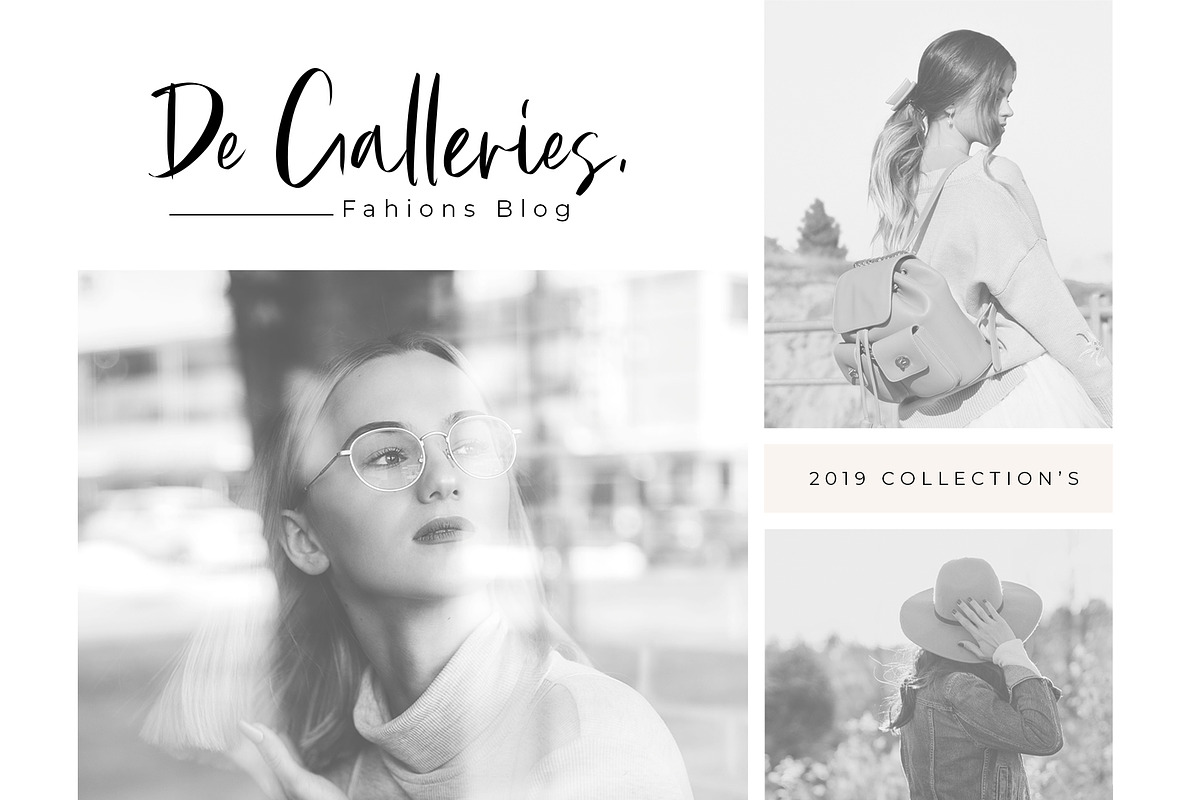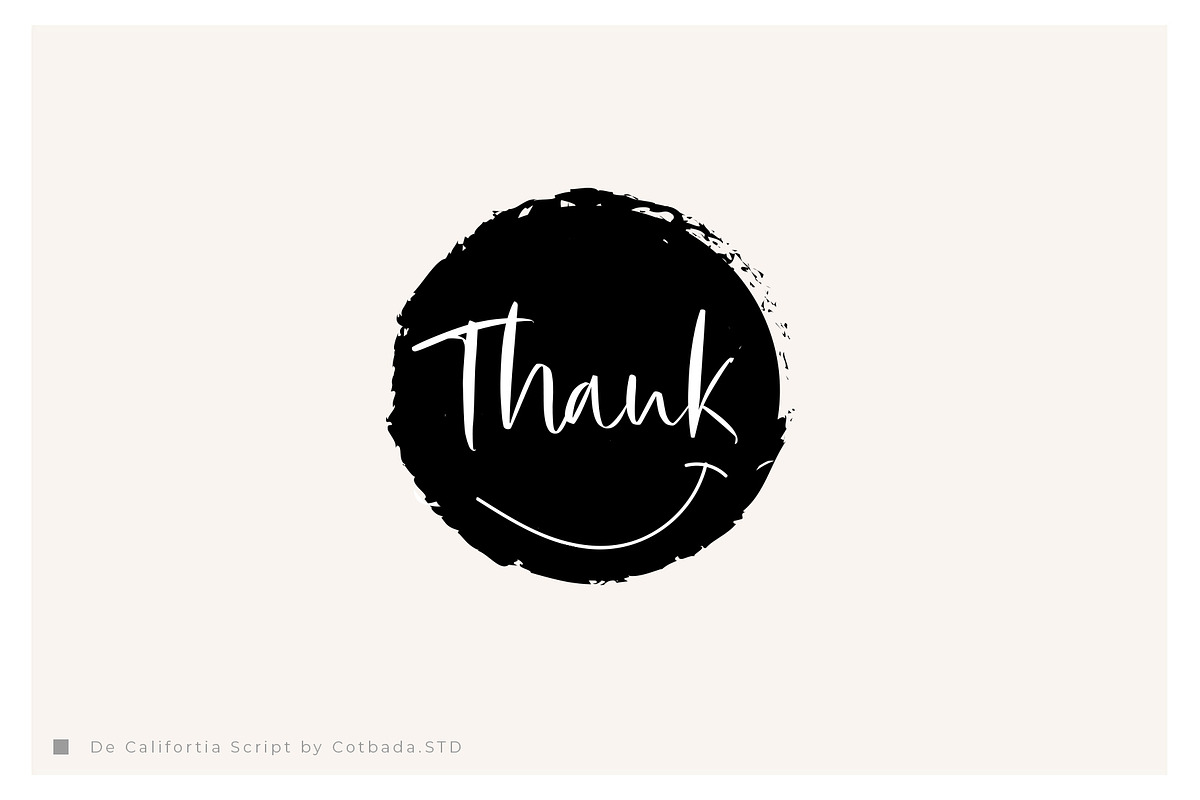
De Califortia
"De Califortia " is a handwritten signature typeface. Its classy energetic look makes it the perfect fit for feminine logos, printed quotes, invitation cards, social media headers, product packaging and a lot more!
- Ligatures Collection
- Upper + Lowercase / Alternate